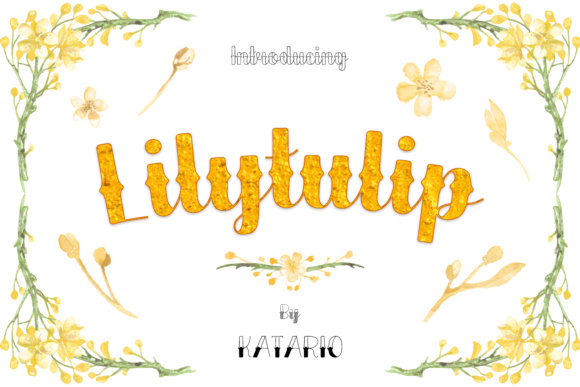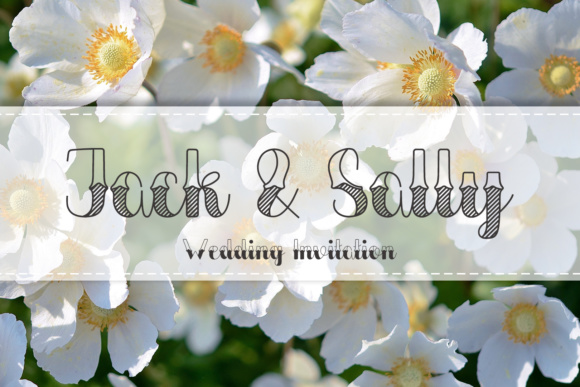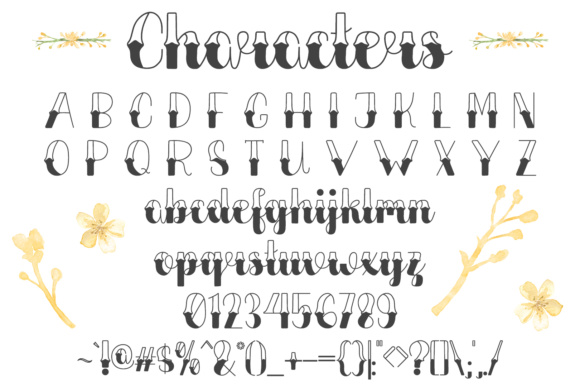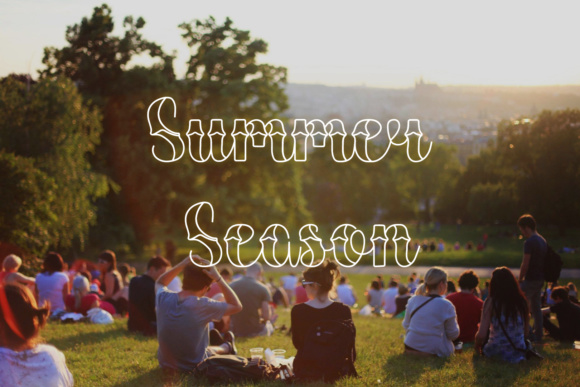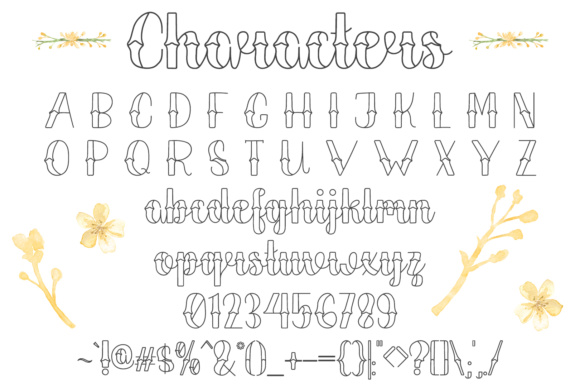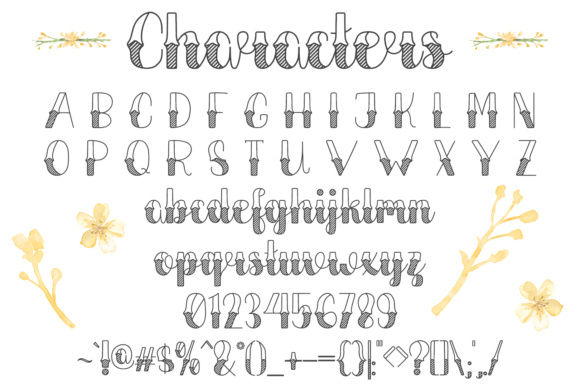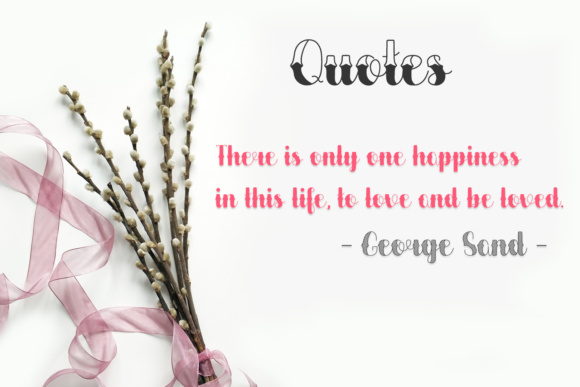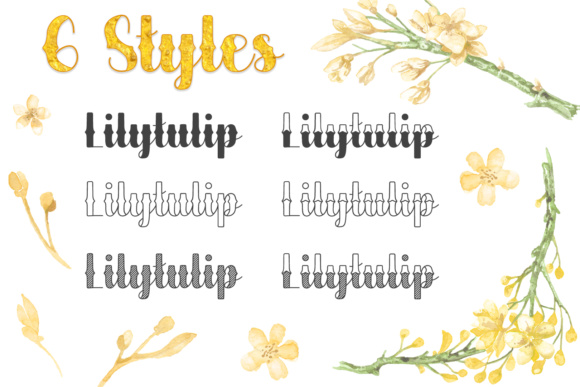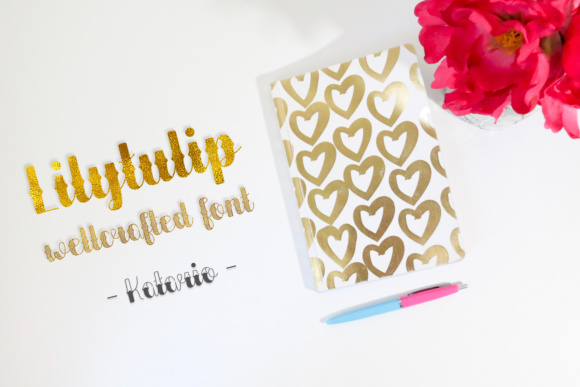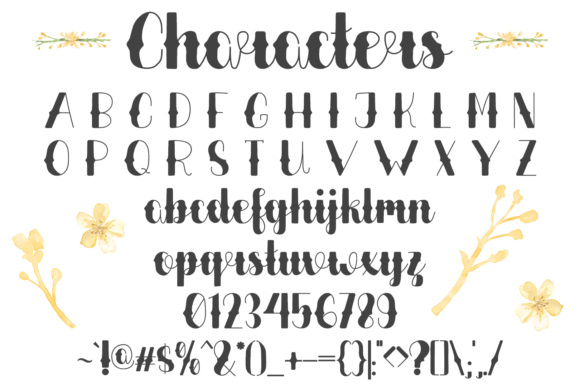
Lilytulip Script Font
About Lilytulip Script Font
The Lilytulip is a beautiful script font. It has a vintage yet elegant style which makes it perfect for many creative products and designs.